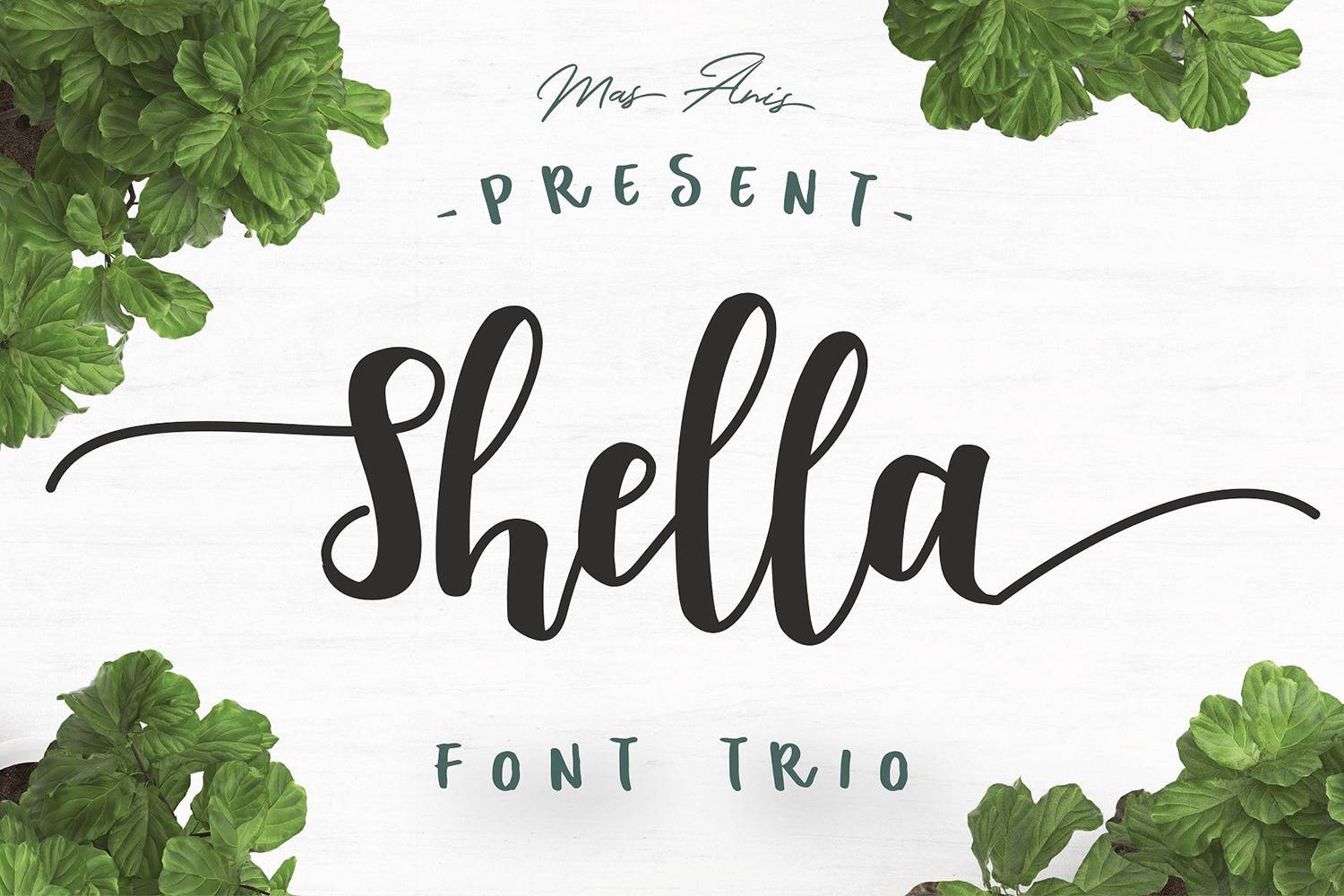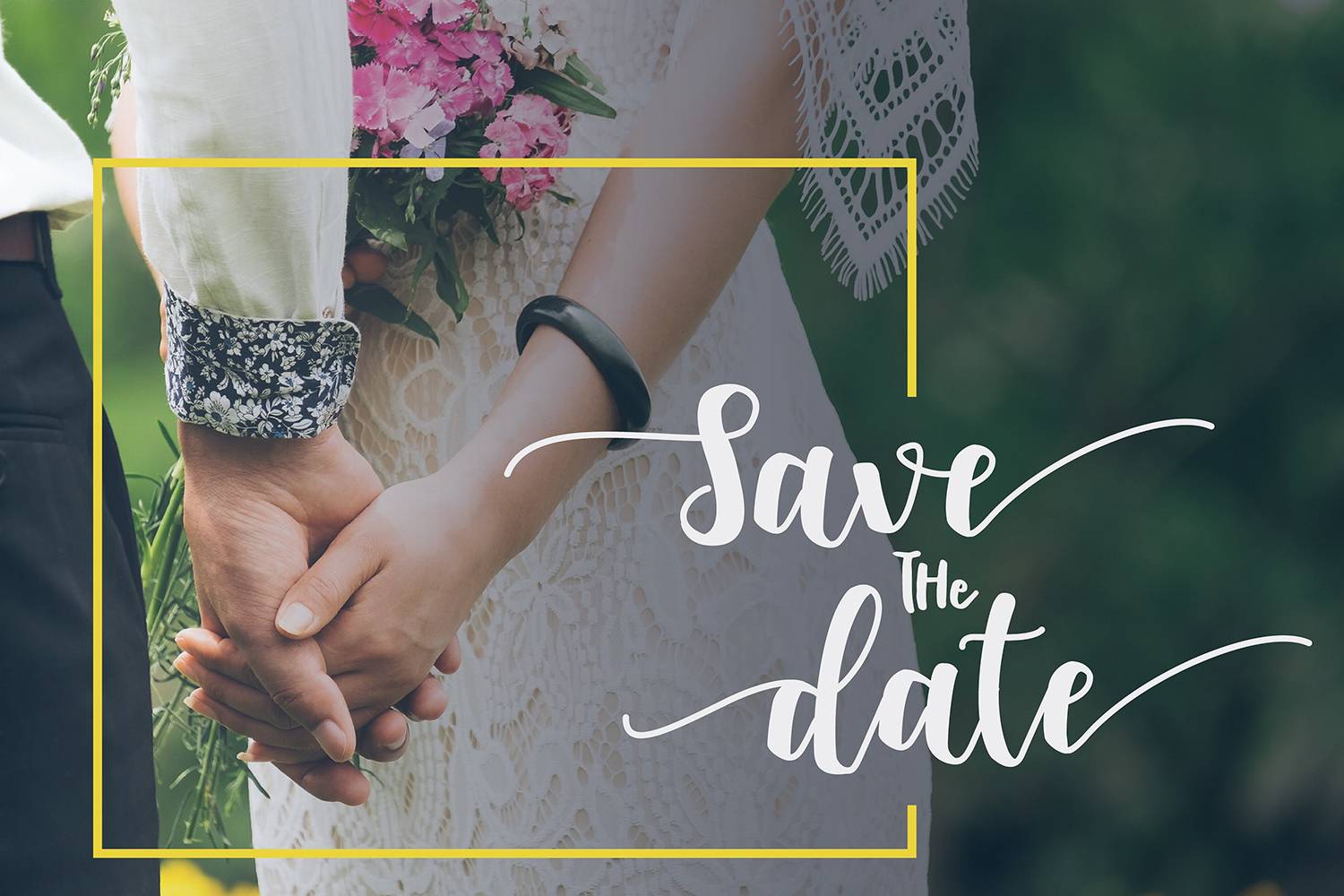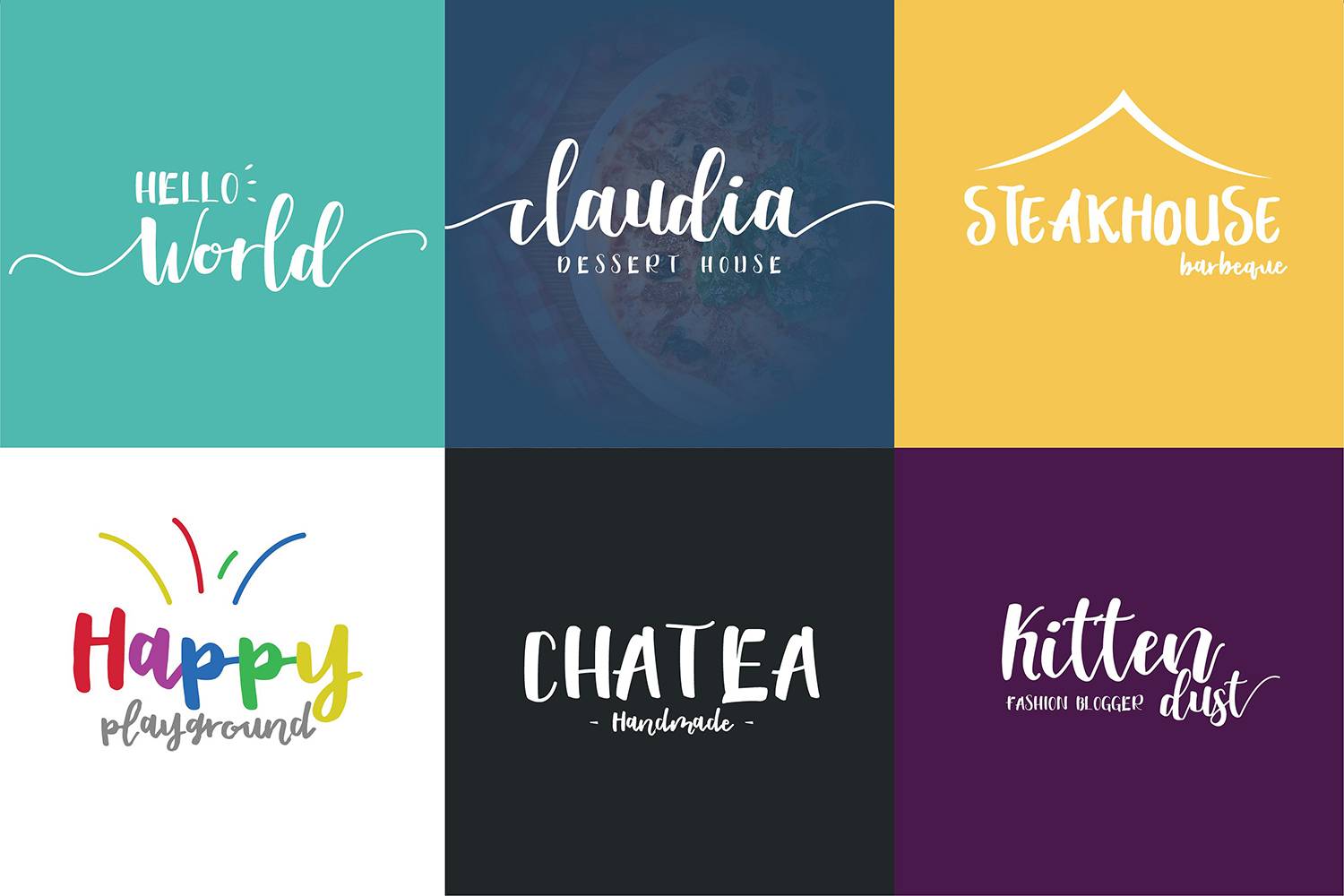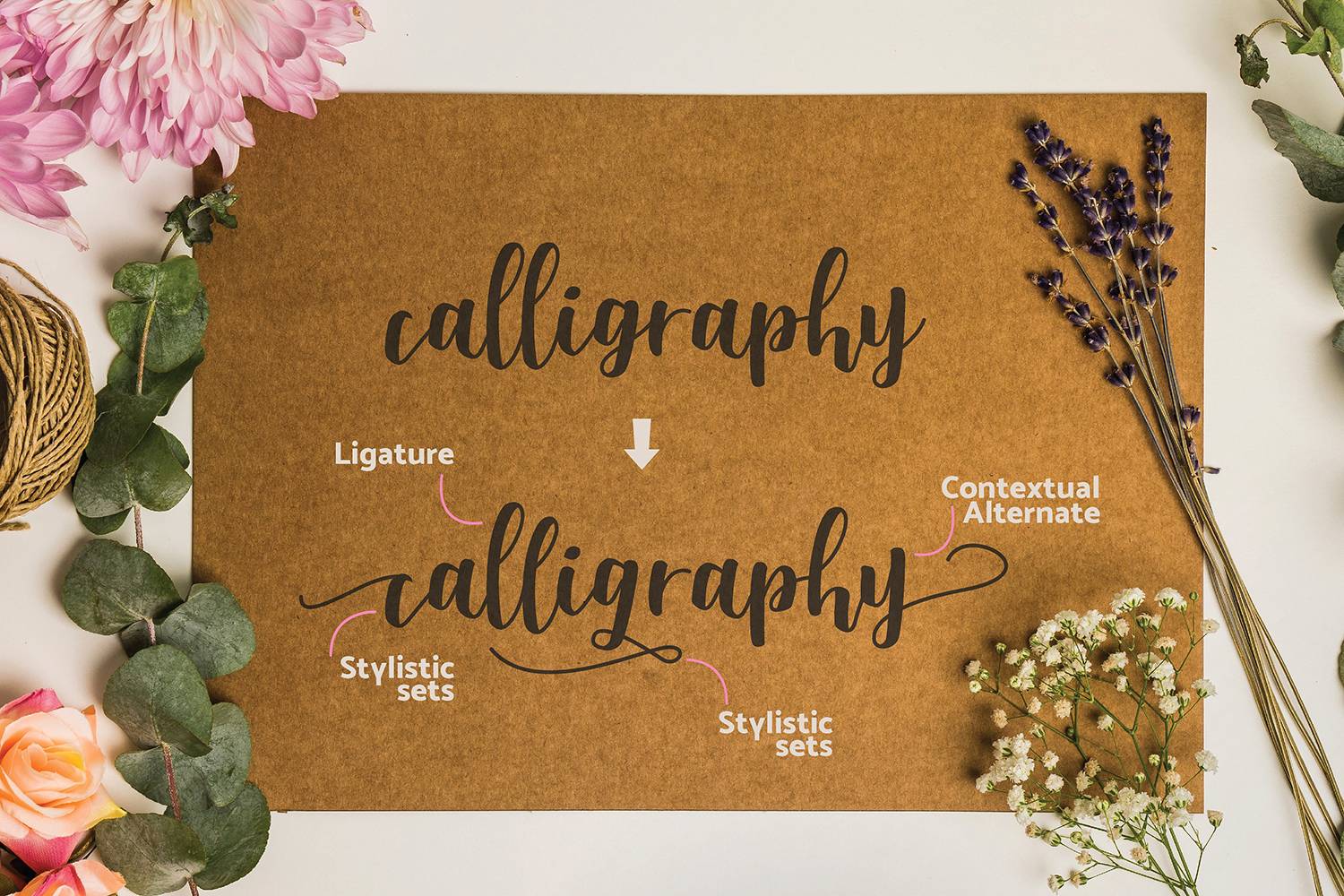
Shella Sans is a lively, playful sans serif font with a hand-drawn, brush-like style that adds a casual and friendly charm. Its slightly irregular letterforms and moderate weight make it a great choice for creative projects, informal branding, and headlines that seek a personal, approachable vibe. This font works well where a warm, artistic touch is needed, such as invitations, packaging, and social media graphics.
Shella Font
About Shella Font